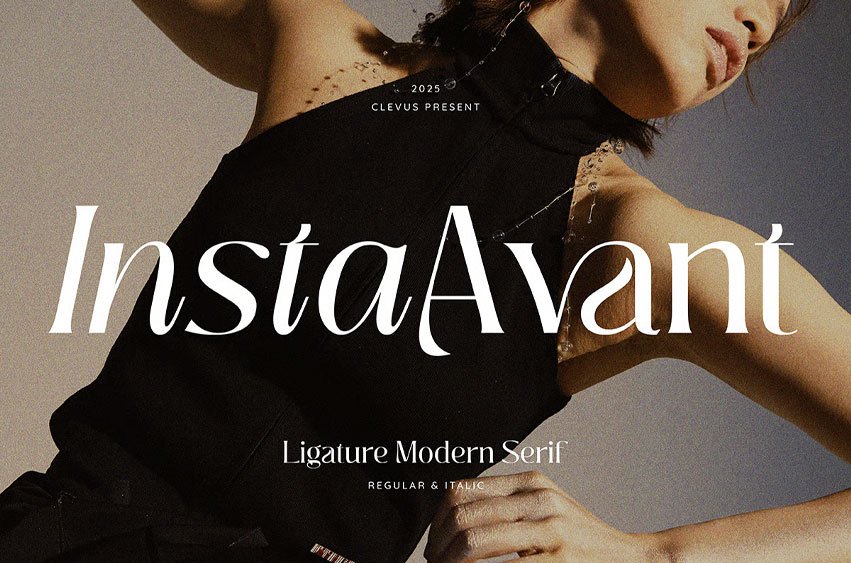
Insta Avant Font Typeface, created by ClevUs, A Ligature modern serif; calligraphic italic that has own unique style modern look. This typeface is perfect for an elegant luxury logo, book or movie title design, fashion brand, magazine, clothes, lettering, quotes, and so much more.